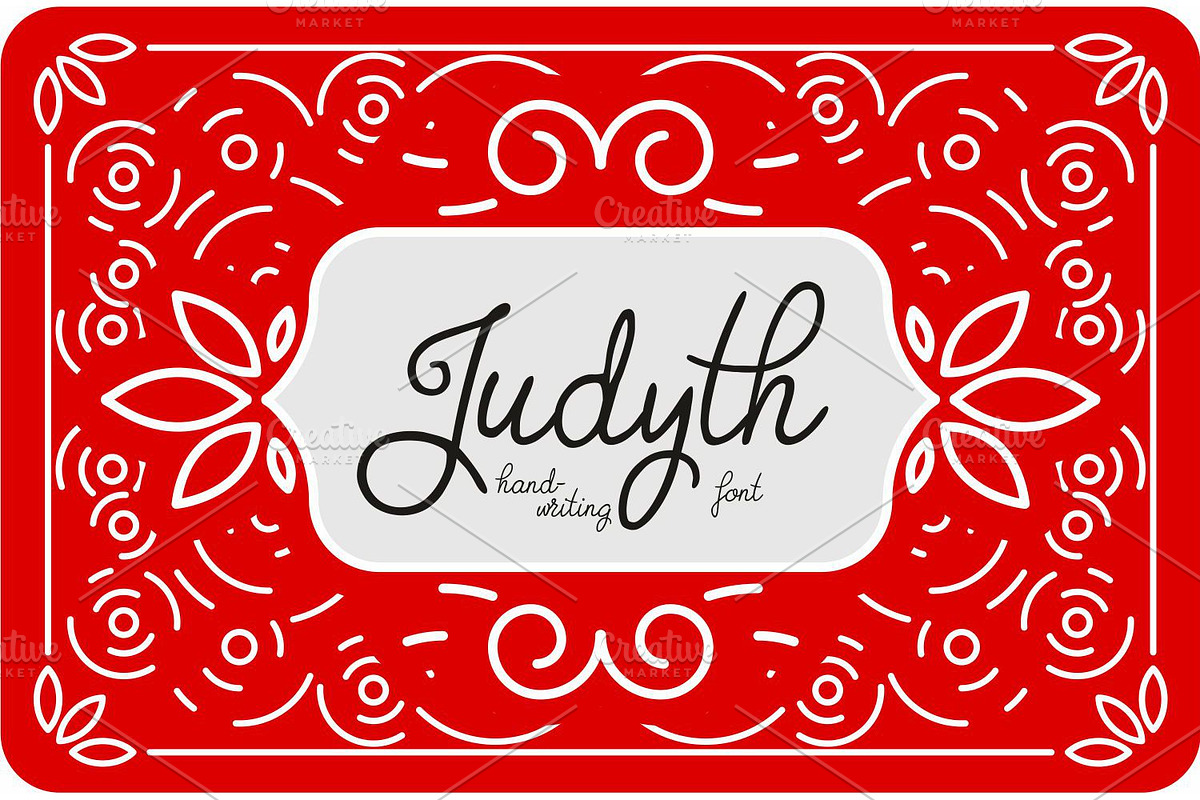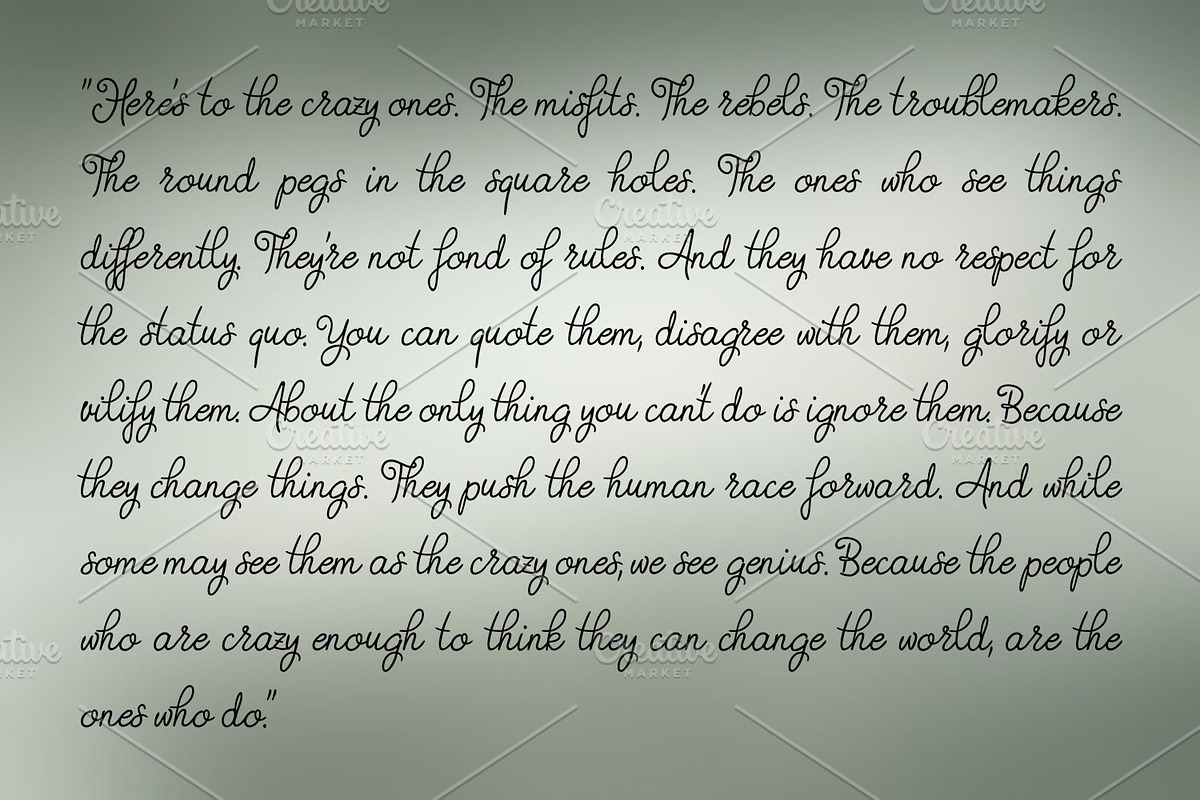
Judyth
- Judyth is ideal for logos, branding, packages and more.
Why Judyth is worth a look
Judyth by Digital Typeface Studio fits naturally into Branding, posters, packaging, typography.